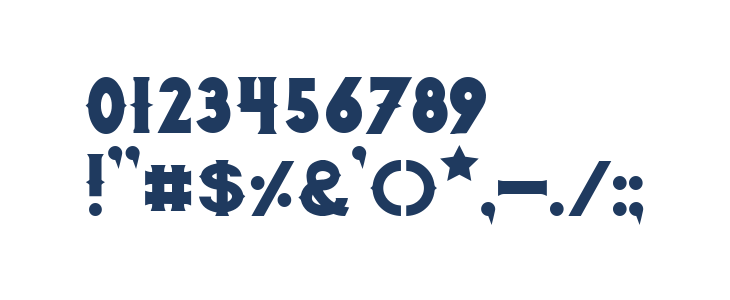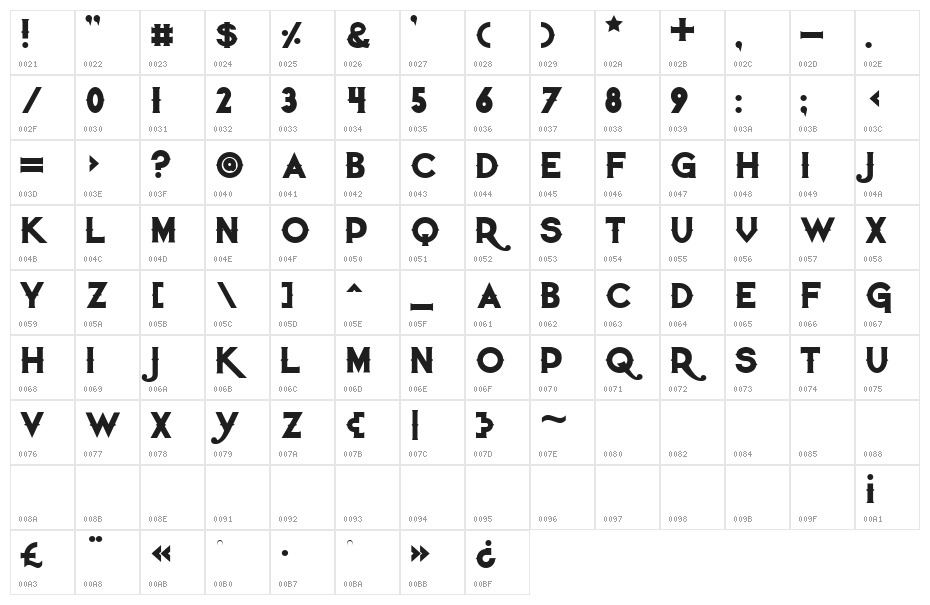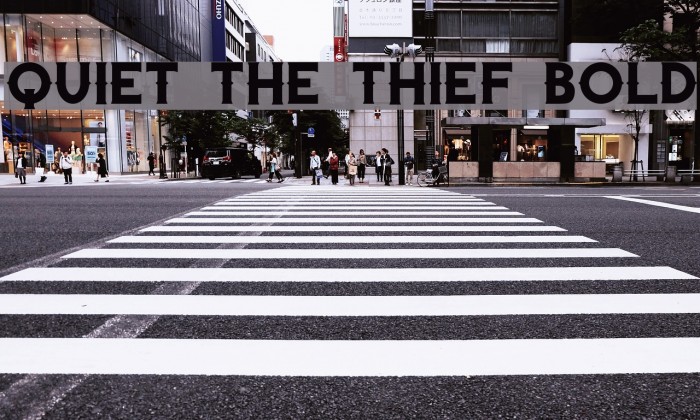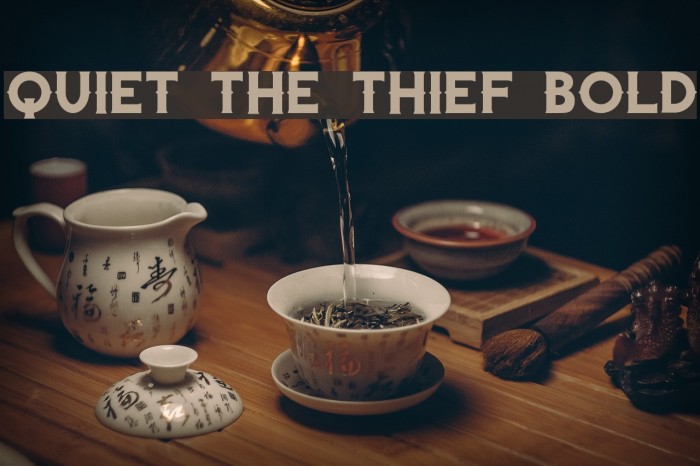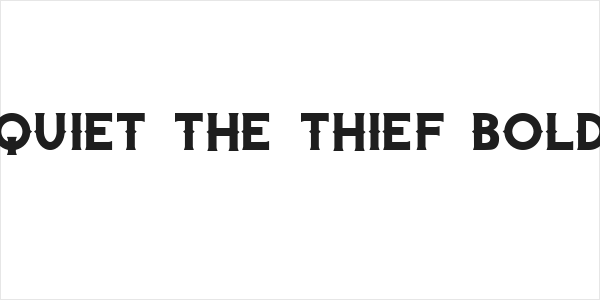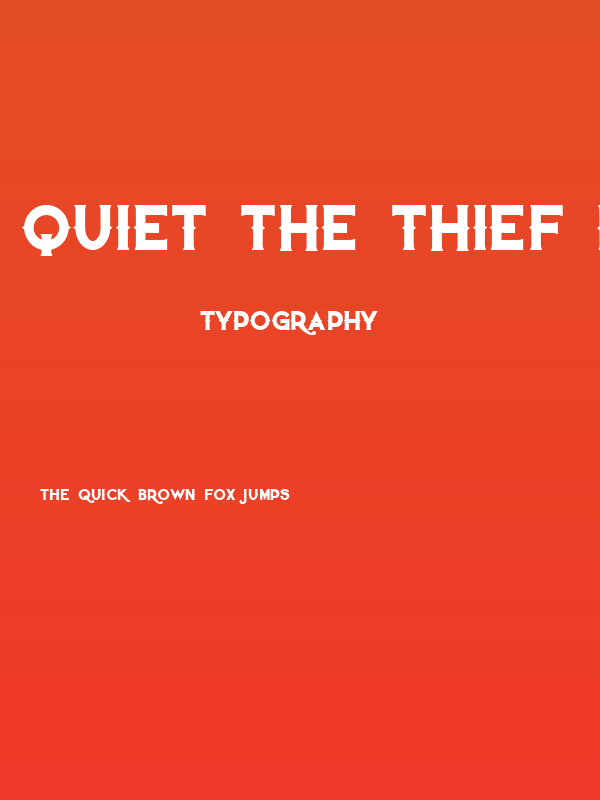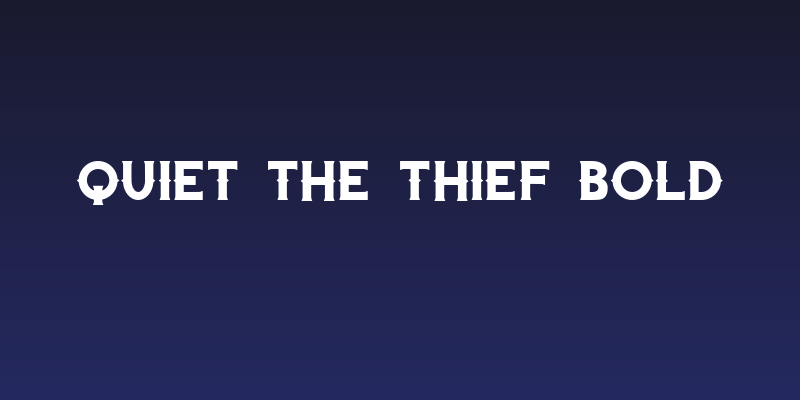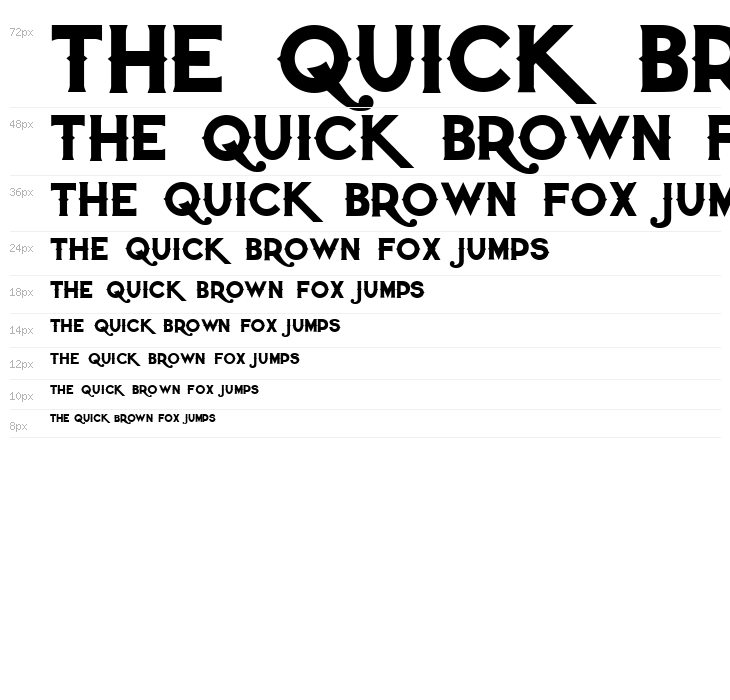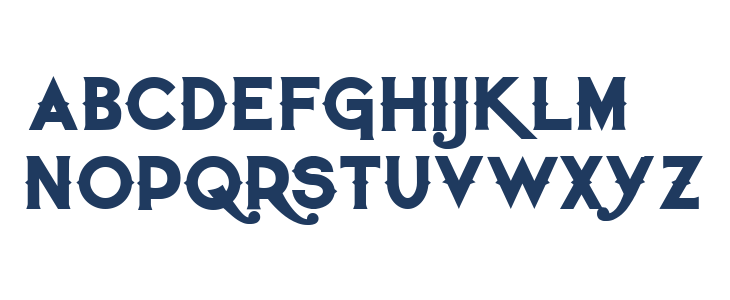
Quiet the Thief Bold Font
Quiet the Thief Bold Description
This font features a bold and striking design with a decorative flair. The uppercase letters are characterized by thick, solid strokes and unique serifs that add a touch of elegance and drama. The lowercase letters maintain a consistent style, offering a cohesive look. The numerals are robust and clear, ensuring readability. Special characters are designed with the same boldness, making them stand out. The overall appearance is both vintage and modern, suitable for making a strong visual impact.
| Overall Style | Vintage, Modern |
| Proposed Projects | Ideal for branding, poster design, book covers, and any project requiring a bold statement. |